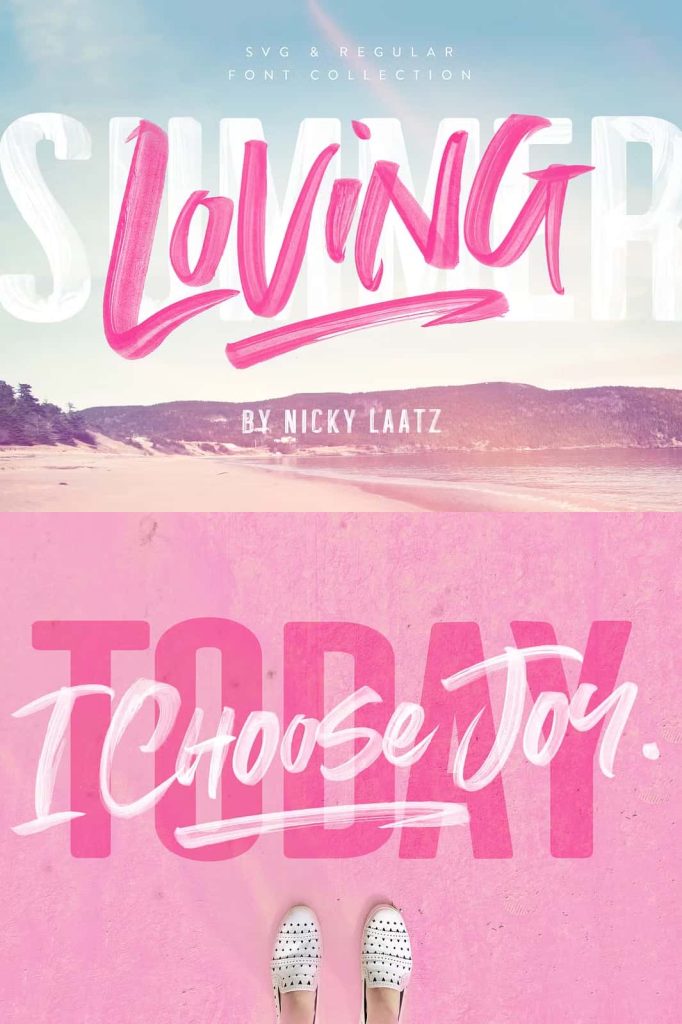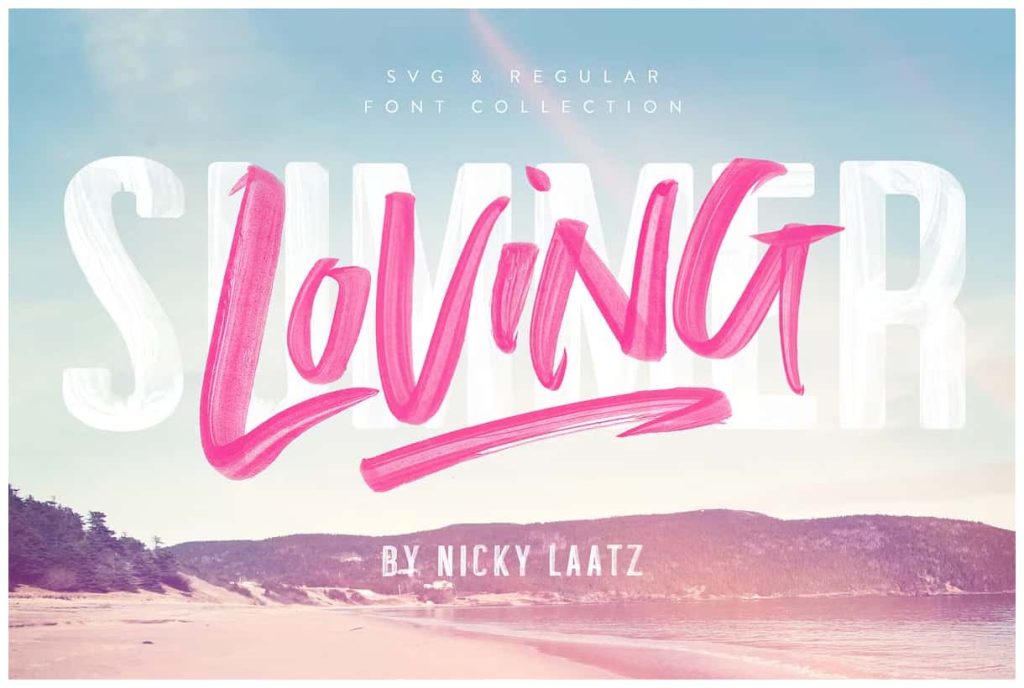
Summer Loving Font CollectionleastedFebruary 21, 2025Fonts Introducing the brand new set of ultra-textured SVG Fonts designed with high resolution paintbrush detail built right in Download